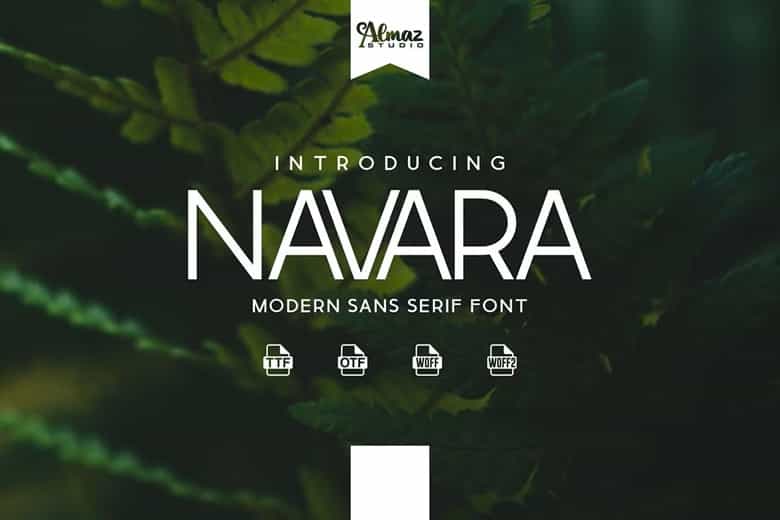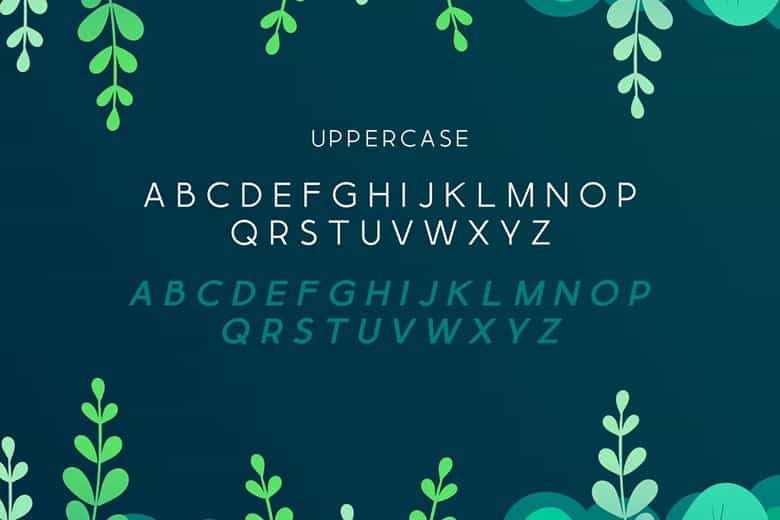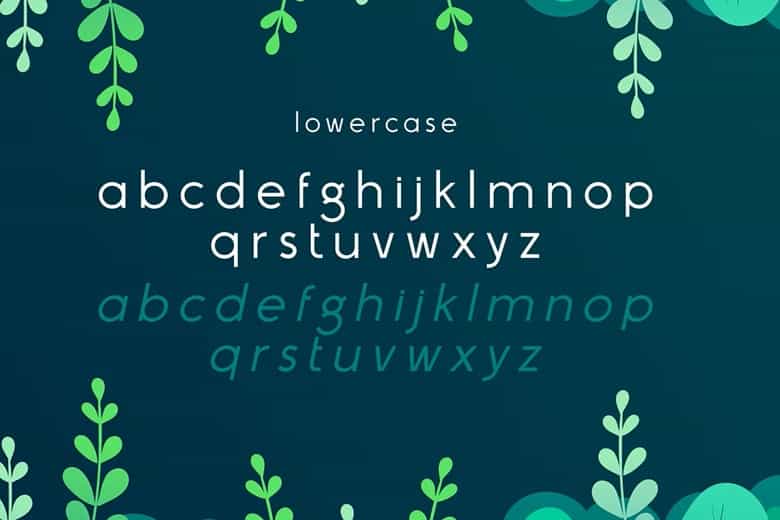
Navara is a new release of a clean elegant sans serif font. It can be used for making the posters, web graphics, game graphics, t-shits, videos, signs, e-books, logos, among other things. It will be good to have a very strong font character to set your design apart and make it look interesting.